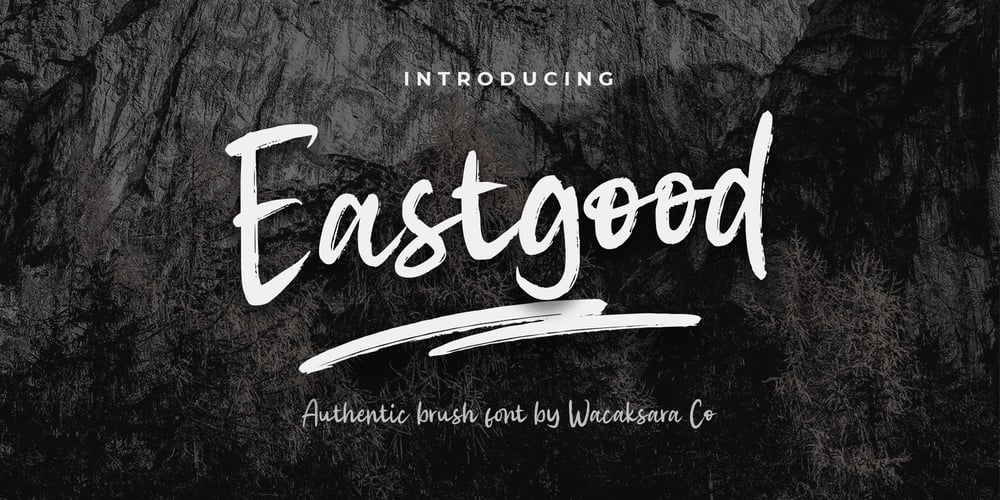
Eastgood Font Family was designed by Hamam Jauhari and published by Wacaksara co. Eastgood contains 2 styles and family package options. Eastgood Font is a hand brush script font and dramatic movement. This font is great for your next creative project such as Logotype, printed quotes, invitations, cards, product packaging, headers, Letterhead, Poster, Apparel Design, Label, and etc.Eastgood comes with uppercase, lowercase, numerals, punctuations and so many variations on each character include OpenType alternates, and common ligatures to let you customize your designs.